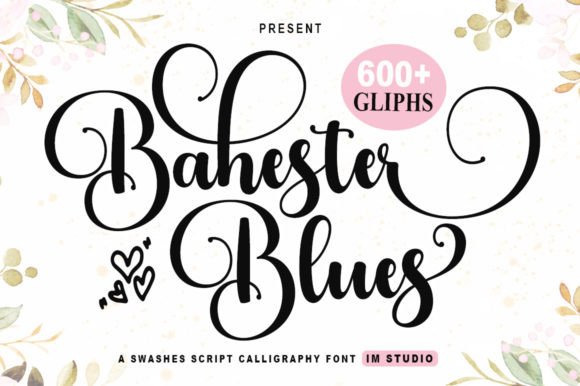
Step into the realm of sophistication and grace with Bahester Blues, a script font brimming with elegance and charm. Expertly crafted by IM Studio, this font is a feast for the eyes, leaving an indelible mark on your creative endeavors.
Immerse yourself in the world of heartfelt sentiments and heartfelt expressions as Bahester Blues adds a touch of refinement to your wedding invitations, thank you cards, and heartfelt quotes. Its graceful strokes evoke a sense of timeless elegance, leaving a lasting impression on loved ones and cherished friends.
With Bahester Blues, the possibilities are boundless. Let your imagination soar as you design logos that exude professionalism and business cards that radiate confidence. Its versatility extends to greeting cards, where heartfelt messages are elevated to new heights of beauty and charm.
Unleash your creativity and explore a world of handwritten artistry. Bahester Blues is meticulously PUA encoded, granting you effortless access to a treasure trove of glyphs and alternates. Create stunning monograms, add a personal touch to your social media posts, or craft unique designs that reflect your distinctive style.
Indulge in the exquisite beauty of Bahester Blues and elevate your designs to new heights. Its timeless appeal and versatility make it the perfect choice for those who seek elegance, sophistication, and an unwavering commitment to quality. Embrace the allure of Bahester Blues today and let your creativity flourish.